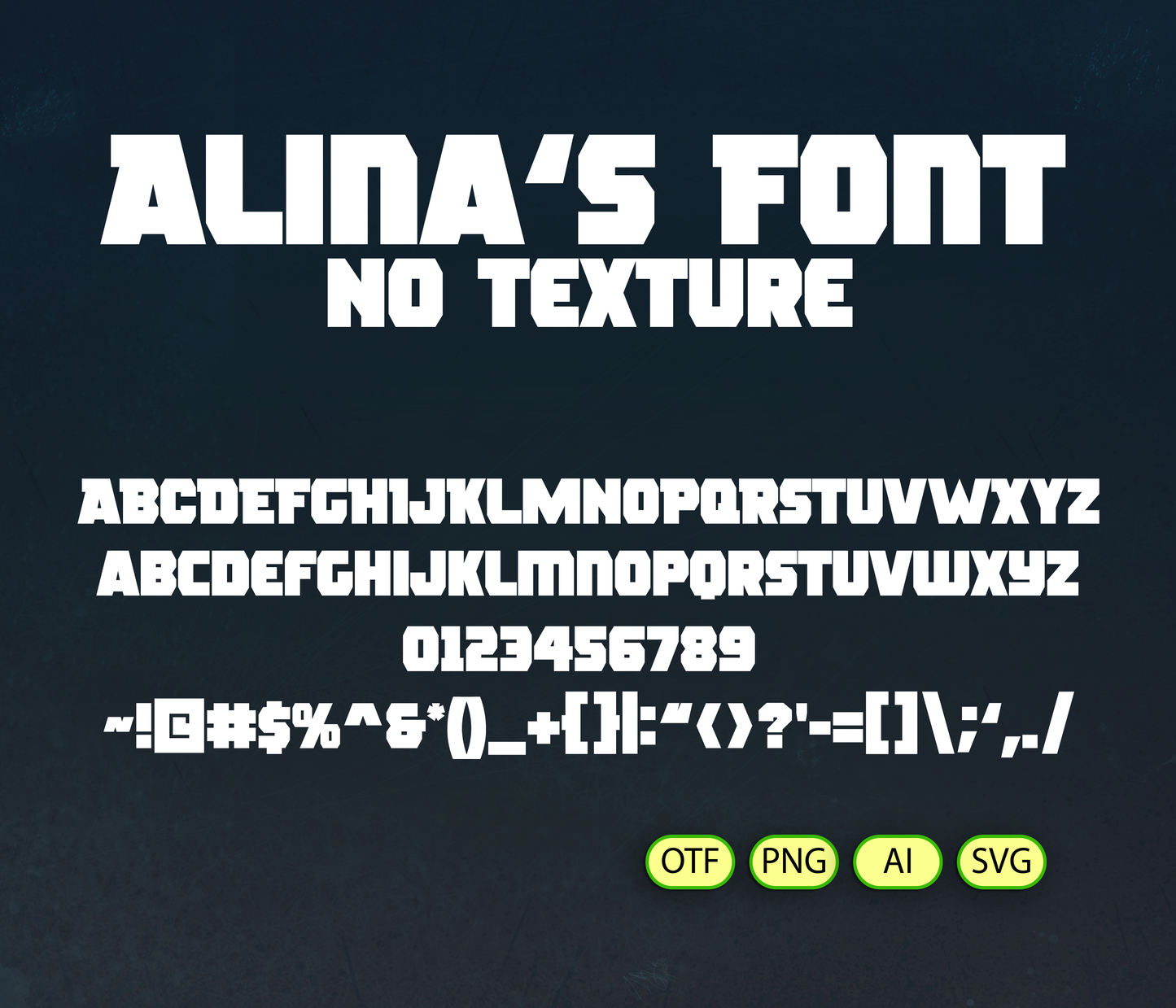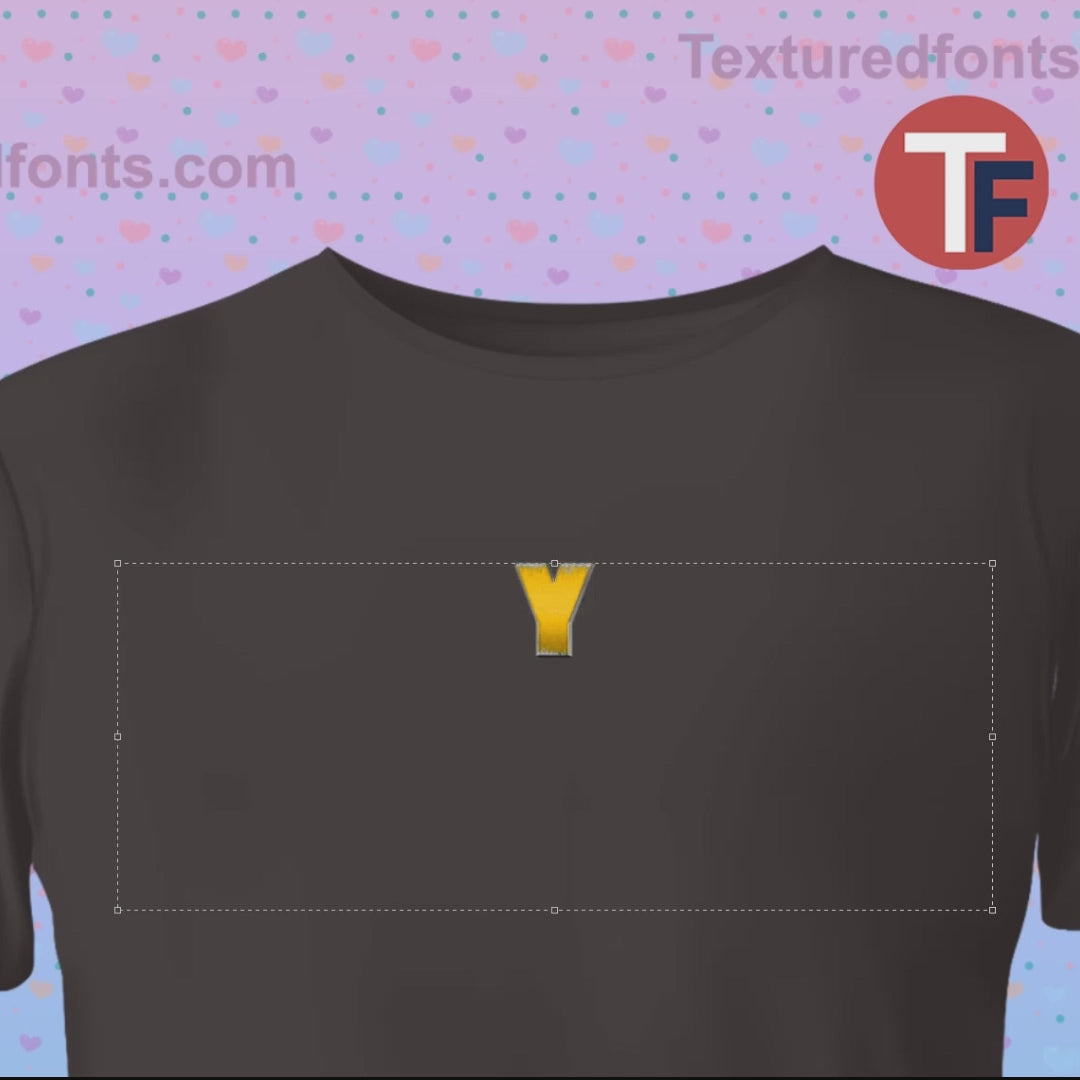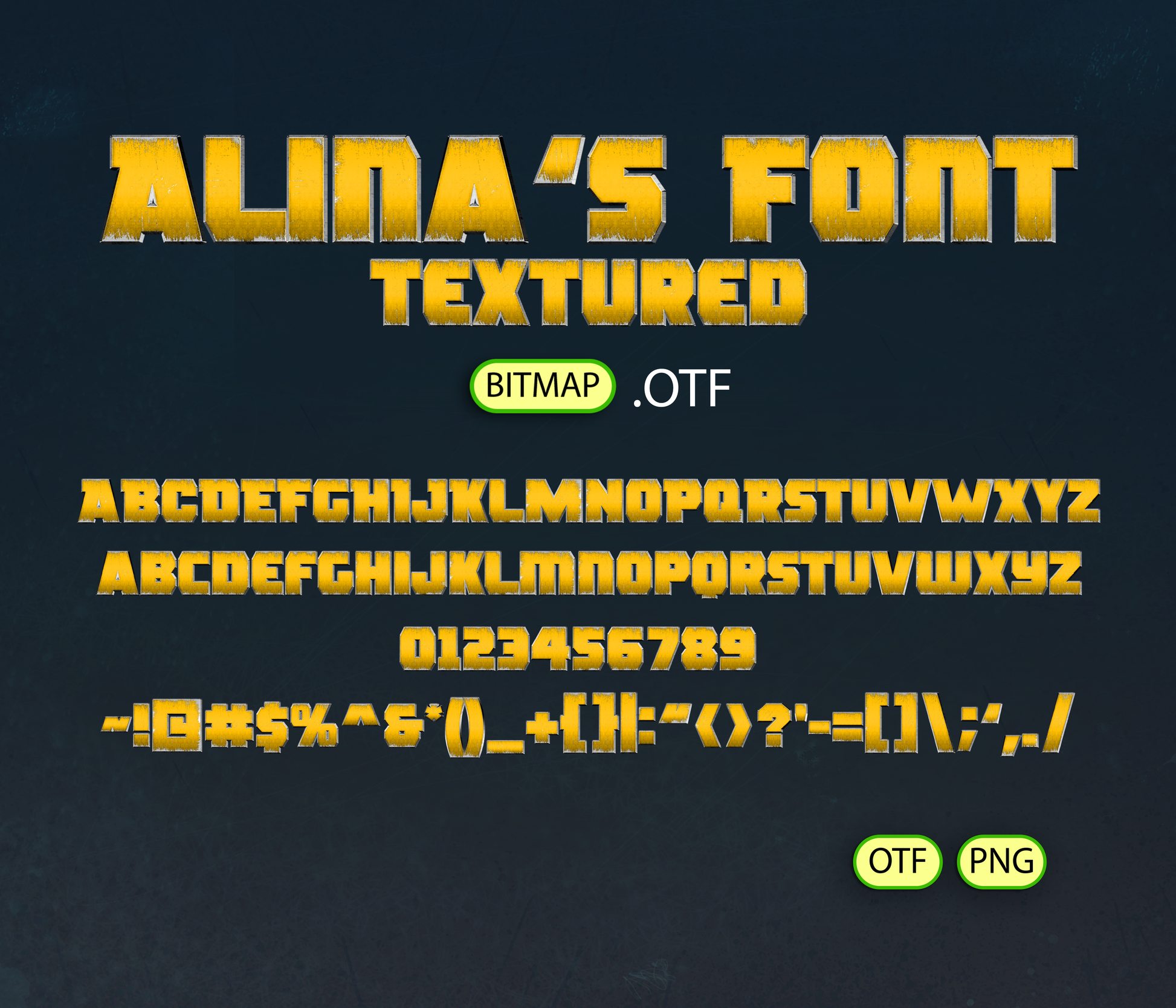
Heroic Clash Font Textured
Dive Into Action with the Heroic Clash-Inspired Font
Embrace the intense and edgy showdown between two of Marvel's most beloved antiheroes with our Heroic Clash-inspired font. Designed to capture the dynamic clash and unique personalities of iconic characters, this font is perfect for fans and creators looking to infuse their projects with the spirit of comic book excitement. Whether designing promotional content for fan events, creating merchandise, or crafting bold digital media, our font ensures your designs resonate with the gritty and witty essence of epic rivalries.
Our Heroic Clash-inspired font features a blend of sharp and irregular lines that reflect raw power and unpredictable style. The typeface balances rugged, torn textures with sleek, modern strokes, making it ideal for a wide range of applications:
Many people seek out a Heroic Clash Font generator online to mimic this look. Steer clear! No font generator can match the quality of this Heroic Clash Font, which comes in two versatile versions: a textured colored font and a simple font. This is particularly beneficial if you plan to use it with a cutting machine.
To ensure broad usability and flexibility, our Heroic Clash-inspired font includes both textured and non-textured variants. The version with no texture is particularly valuable, ensuring compatibility with all types of software, including Canva. This versatility allows users of all skill levels to seamlessly integrate the font into their designs, enhancing accessibility and ease of use across various platforms and projects.
Our Heroic Clash font is not just a typeface; it’s an invitation to bring the thrilling atmosphere of superhero battles into your creative endeavors. With its unique style and versatile application, this font allows you to convey the excitement and tension of legendary rivalries in every design. Get ready to captivate and engage audiences, whether promoting a blockbuster showdown or celebrating fan-favorite characters in your own creative way.